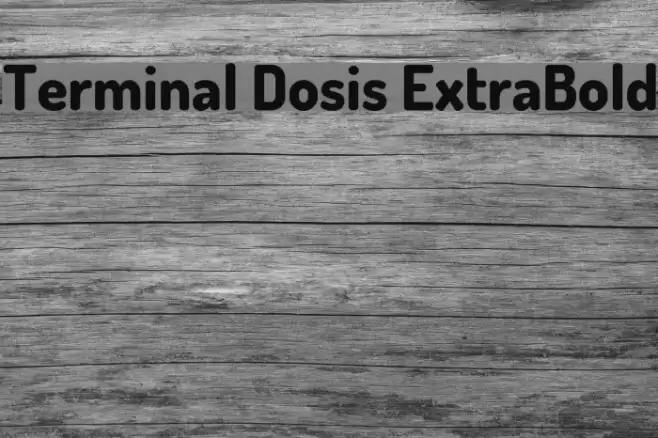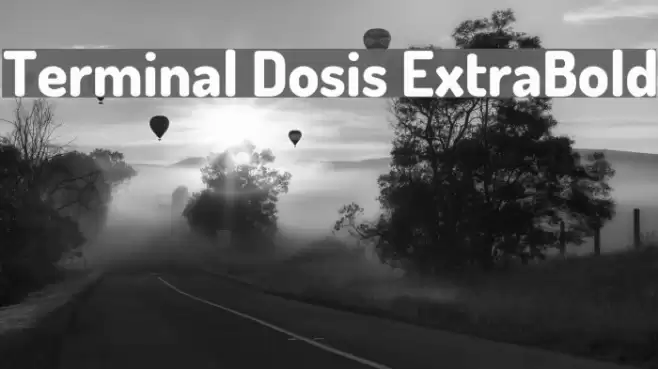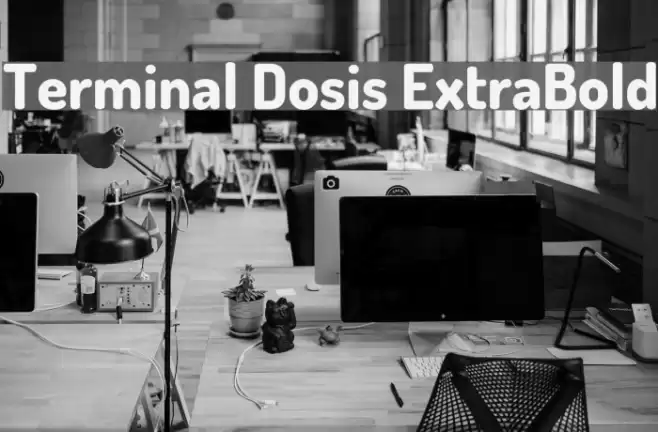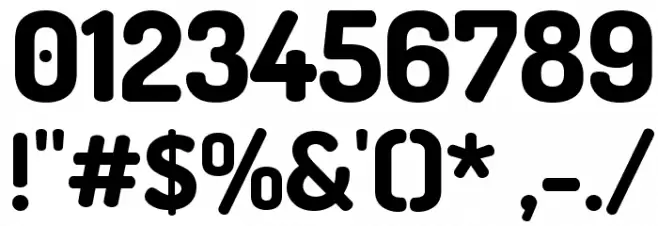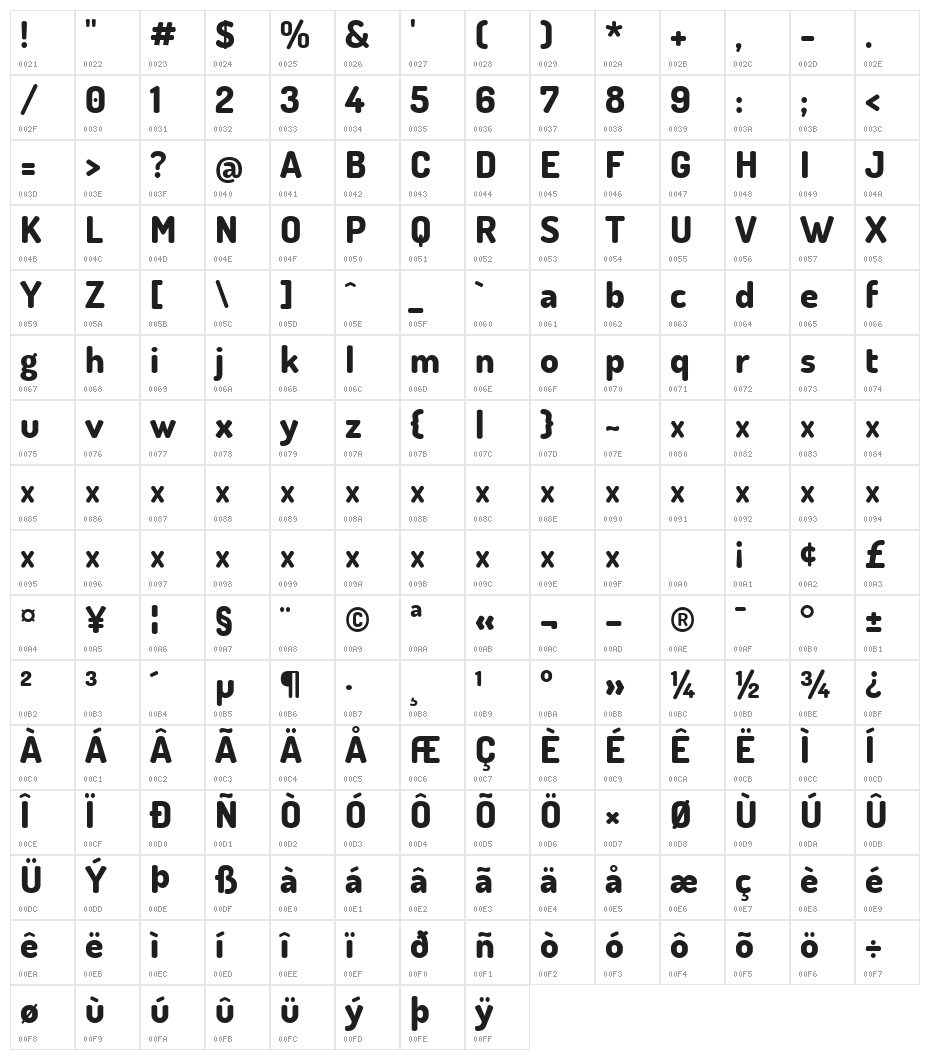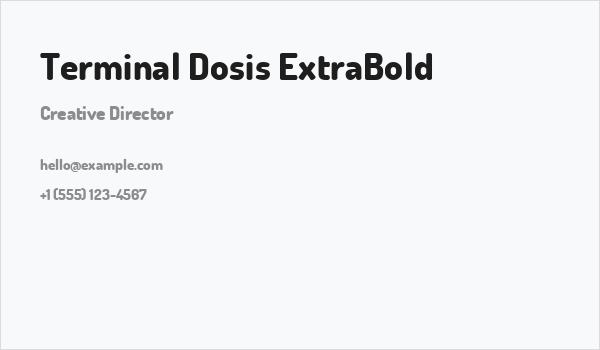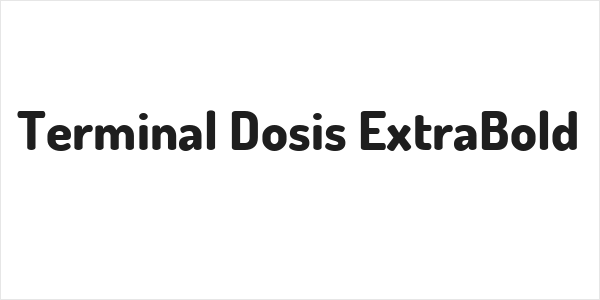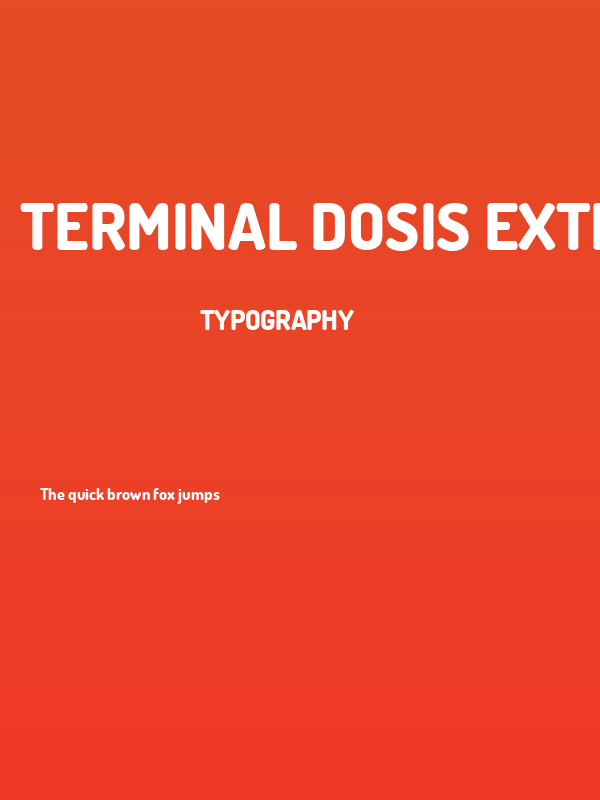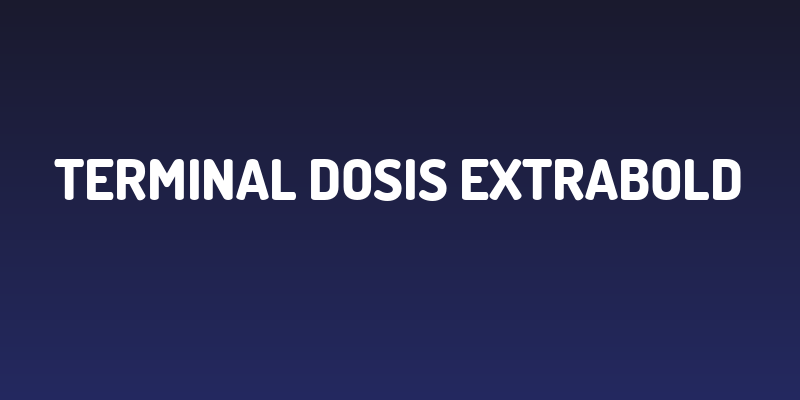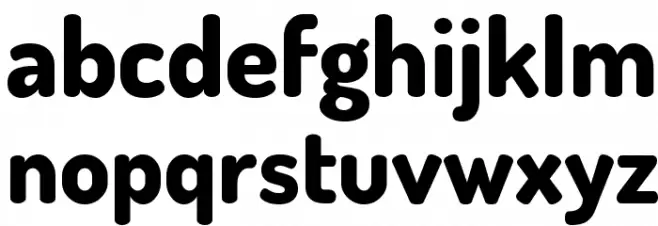
Terminal Dosis ExtraBold Font
Terminal Dosis ExtraBold Description
This font features a bold and rounded sans-serif style, characterized by its smooth curves and uniform stroke width. The letters are well-balanced with a modern and friendly appearance, making it highly legible even at smaller sizes. The rounded edges give it a soft and approachable feel, while the consistent weight across all characters ensures a cohesive look. It includes a full set of uppercase and lowercase letters, numerals, and a variety of special characters, making it versatile for different design needs.
A bold, rounded sans-serif font with smooth curves and a modern feel from Uncategorized fonts.
- Proposed Projects: Ideal for branding, headlines, posters, and digital interfaces where a friendly and modern look is desired.